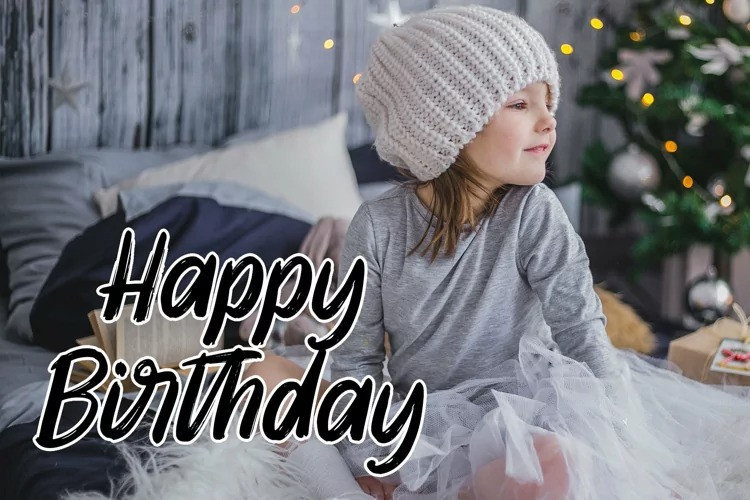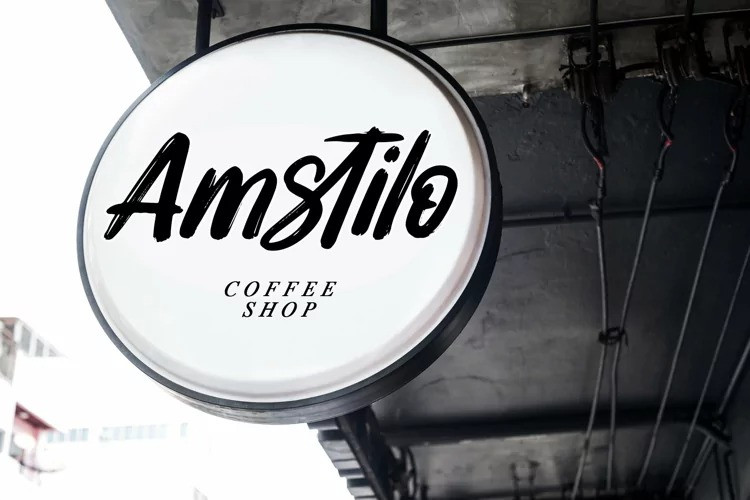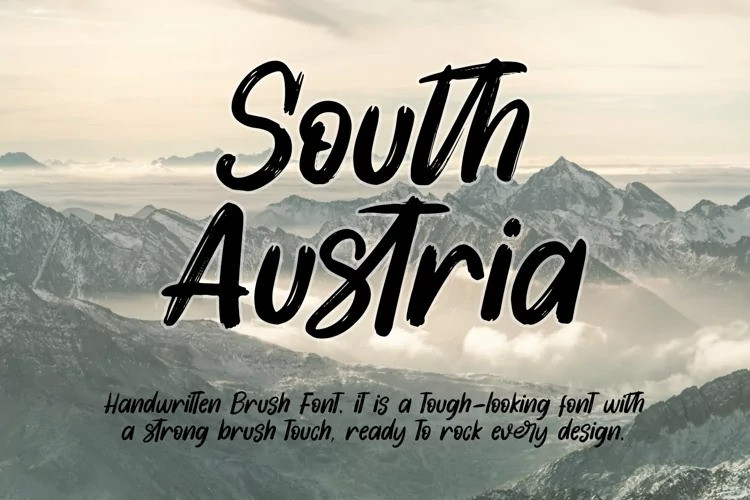
South Austria Font
South Austria Brush Font is a natural and display font. It is a tough-looking font with a strong brush touch, ready to rock every design you want to create. It is perfect for logos, quotes, posters, clothing, and so much more! Add it to any of your creative projects, and be amazed by the generated outcome!